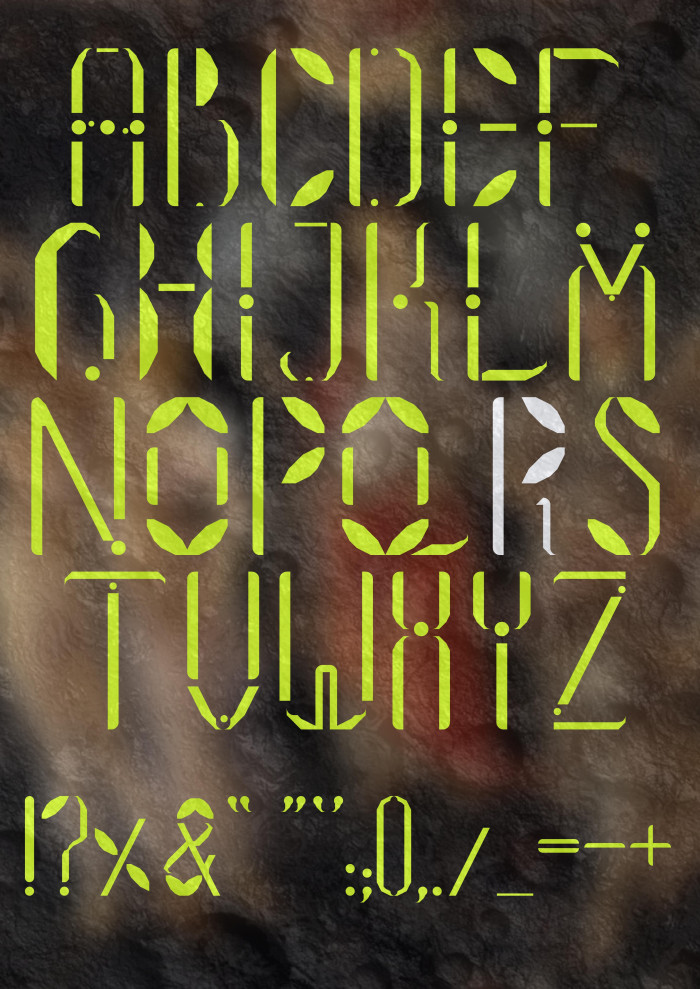
I like the 'airy' look, it's easy to read. You've used the bricks well, in my mind the mix of bricks creates an impression of rebirth in the sense of "spring time" (the long ovals  are like leaves emerging).
Lunovoby Aleksandra Tsvetanova